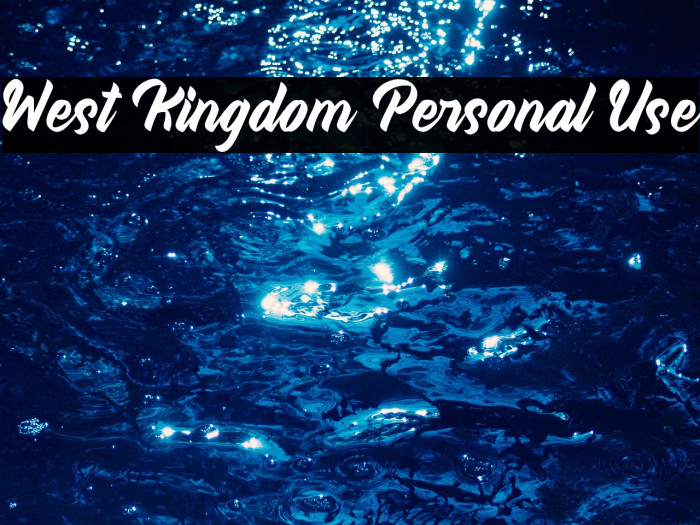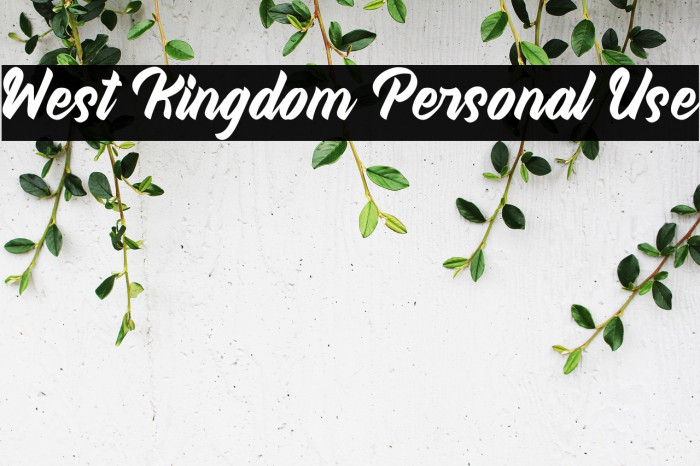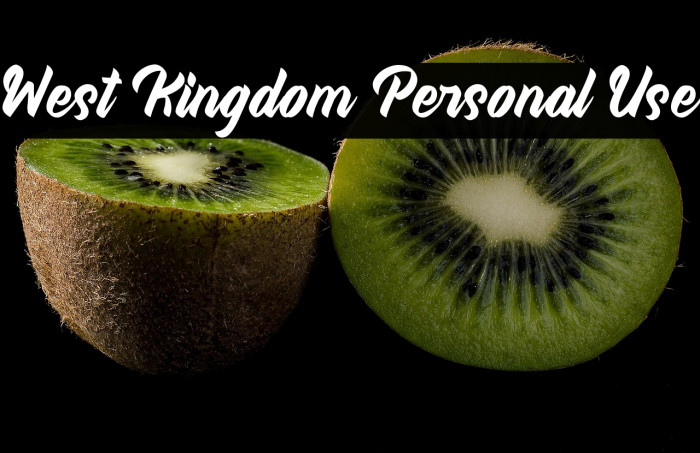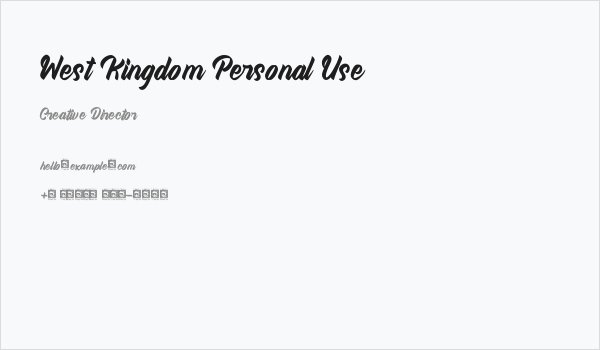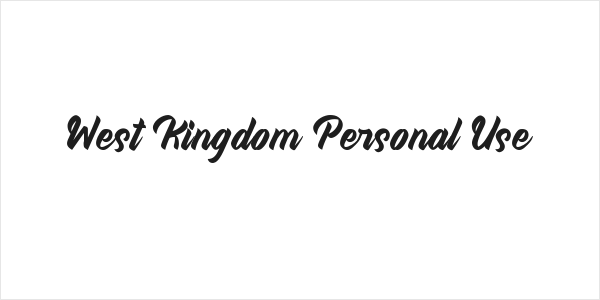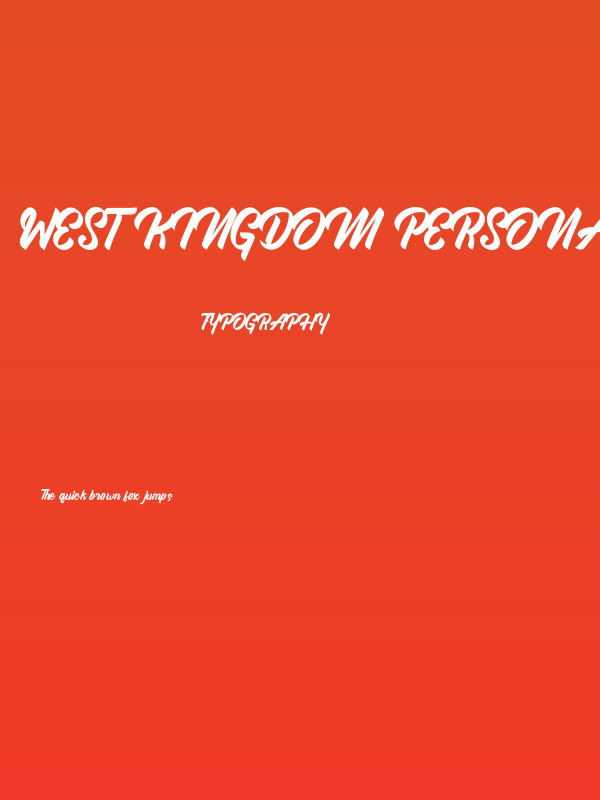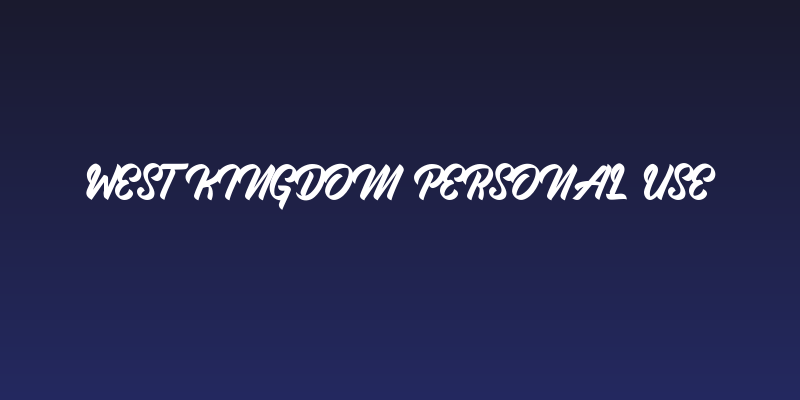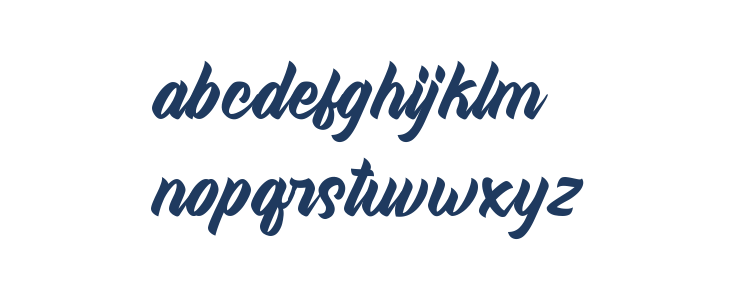
West Kingdom Personal Use Font
West Kingdom Personal Use Description
This font features a bold and dynamic script style, characterized by its flowing, cursive letterforms that convey a sense of movement and energy. The uppercase letters are particularly striking, with exaggerated loops and swashes that add a touch of elegance and flair. The lowercase letters maintain a consistent style, with smooth curves and a slightly condensed appearance. The font's overall design is both modern and expressive, making it suitable for creative and artistic projects. The characters are closely spaced, enhancing the cohesive look of the text. This font is ideal for use in branding, logos, and headlines where a bold statement is desired.
Proposed ProjectsIdeal for branding, logos, headlines, and creative projects requiring a bold, expressive style.